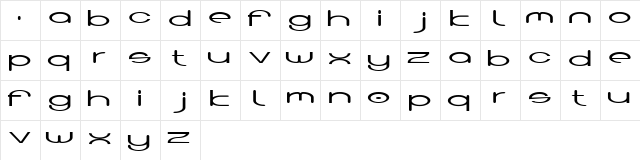
hoodoo two Regular
Design Context for hoodoo two Typeface
hoodoo two offers clean, dependable letterforms without strong stylistic allegiance, making it a practical choice for designers who need flexibility.